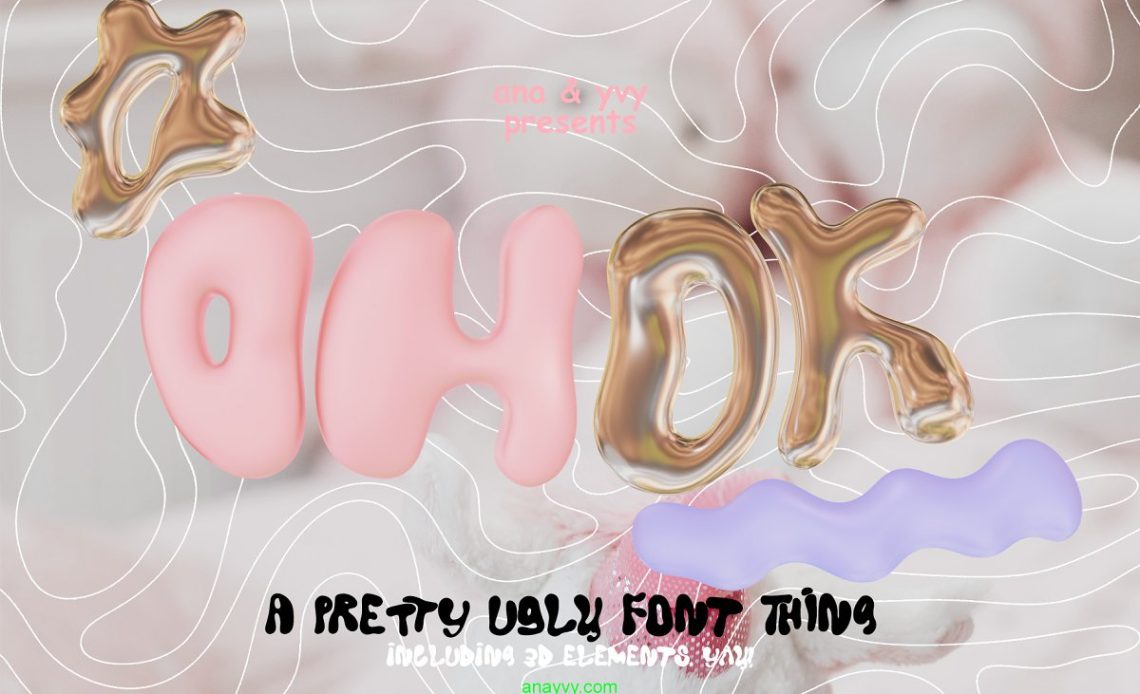
If you're looking for a font that truly stands out, then look no further than the "Ok Cool" Metallic Bubble Font Duo. Created by the talented designers Ana & Yvy, this font family is perfect for those who want to add a touch of whimsy to their designs.
With its wobbly bubble 3D effect, this font is unlike anything else on the market. The realistic bubble or gold metallic chrome letters and ligatures make every poster or layout look the bomb! Plus, with the plain black font option, you can mix and match to create the perfect combination for your project.
But that's not all that's included in this font family. You'll also get access to ROSE & METALLIC 3D alphabet, ligatures, and signs, with 307 elements each color in high-resolution PNG format, ranging in size around 1500x1500px. And let's not forget the wabble shapes and bonus open PSD file that shows you how to achieve some styles from the previews.
So whether you're a graphic designer, social media manager, or just someone who loves to create, this font family is perfect for you. It's versatile, unique, and guaranteed to make your designs stand out from the rest.